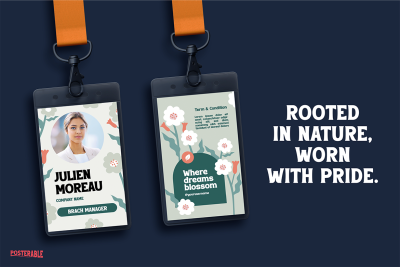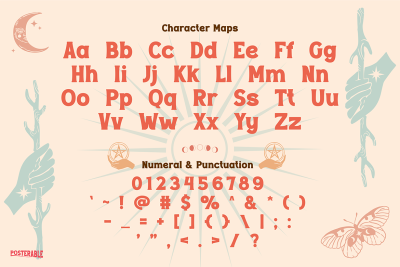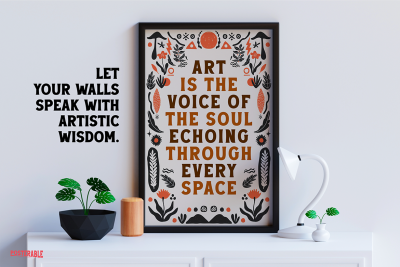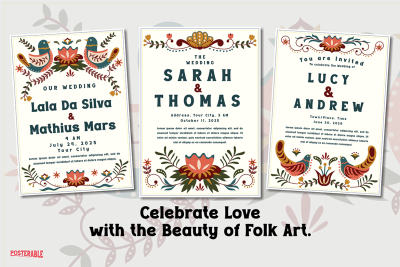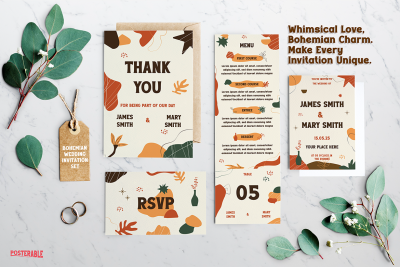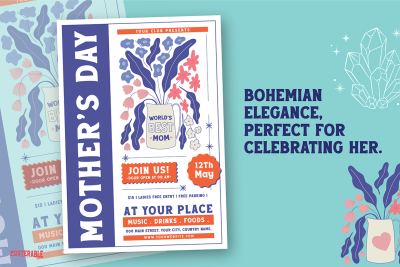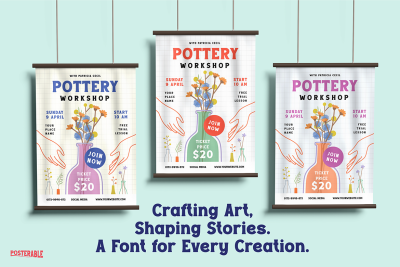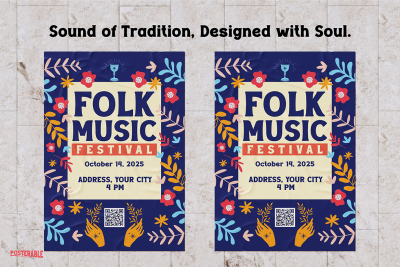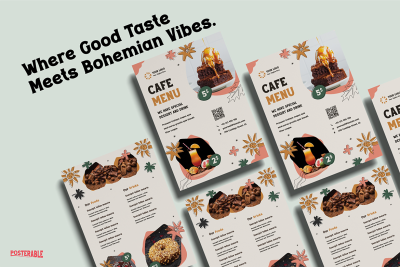
Retro Font POSTERABLE
Retro Font POSTERABLE brings a playful and charming vintage aesthetic to your creative projects. Designed with bold curves and a nostalgic 1970s vibe, this typeface radiates warmth and personality. Moreover, the font showcases clean, hand-drawn characters that stand out in digital and print media. Its design features smooth lines and balanced letterforms, ensuring legibility while maintaining an artistic flair.
Whether you’re aiming to capture retro vibes for posters, invitations, or branding, POSTERABLE delivers versatile usage with a distinct aesthetic. Furthermore, the subtle artistic elements, like its organic feel and flowing letterforms, give it a friendly and approachable tone. Therefore, itโ€™s perfect for audiences looking for a nostalgic yet modern design element. Additionally, its natural curves and customizable sizing make it adaptable for headlines, logos, or accent text.
This font also includes multilingual support, making it suitable for global audiences. Its well-crafted design ensures that it retains its charm across various languages and scripts. As a result, POSTERABLE broadens its usability and enhances its appeal for international projects. Moreover, the font is available in multiple formats, ensuring compatibility with different design tools.
Retro Font POSTERABLE Perfect For?
Retro Font POSTERABLE is perfect for designers, small business owners, and content creators. Specifically, itโ€™s ideal for adding a vintage touch to projects. Its warm, inviting feel appeals to industries like wellness, art, fashion, and event planning. For example, social media marketers can use POSTERABLE to craft engaging, retro-themed content. Similarly, crafters can apply it to custom printables or handmade products.
If youโ€™re a brand seeking authenticity and charm, this font works beautifully for visual identity. Consequently, from creative businesses designing posters and flyers to independent bloggers creating aesthetic banners, POSTERABLE enhances creativity. It also aligns well with nostalgic, boho-inspired, or nature-focused aesthetics.
For educators and institutions, POSTERABLE adds a touch of creativity to presentations and learning materials. Its friendly appearance makes it an excellent choice for childrenโ€™s books, posters, or educational games. Additionally, brands focusing on eco-friendly or sustainable products will find its organic style a perfect match for their branding needs. With POSTERABLE, the possibilities are endless for anyone seeking a blend of vintage charm and modern versatility.